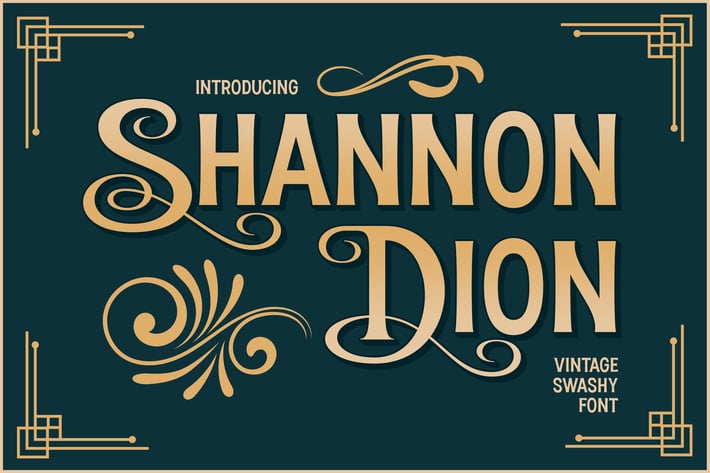
Shannon Dion - Vintage Ornamental Fonts
Shannon Dion is a vintage decorative ornamental font. It was inspired by the trend of the victorian era, prints headline, retro signs, newsletters, and advertising back in the 50s. Uppercase has a role as an ornamental character, and lowercase is a standard set of the text of whole letters.
Perfectly fit for a logo, branding, signage, decor, books, cover, badges and emblems, clothing, apparel, merchandise, movie title, serials, and many more.